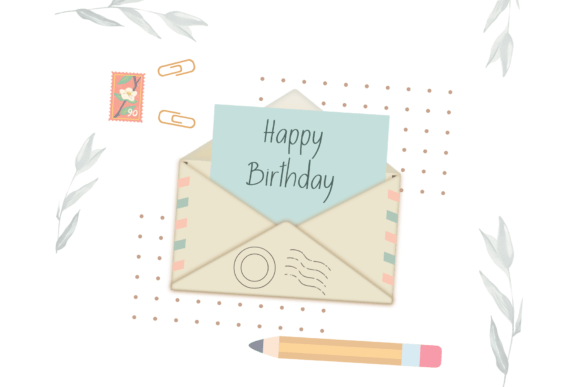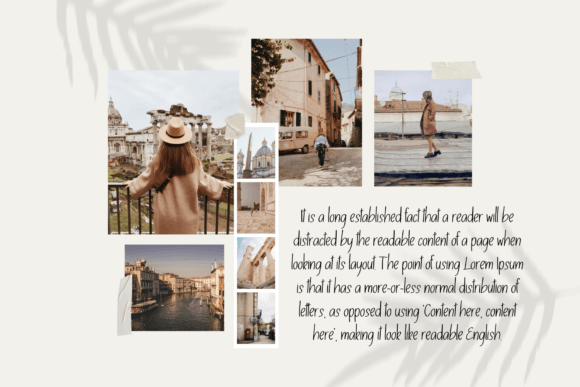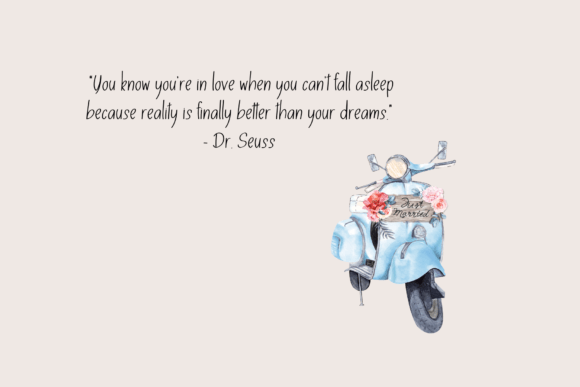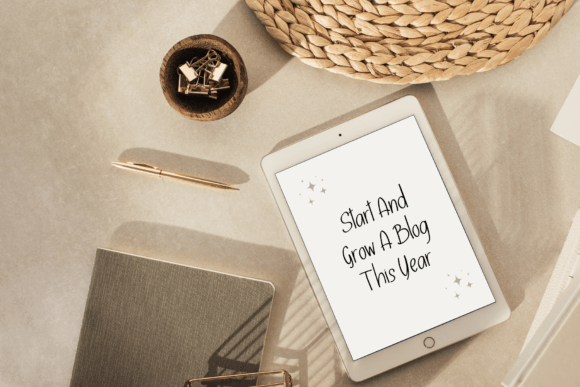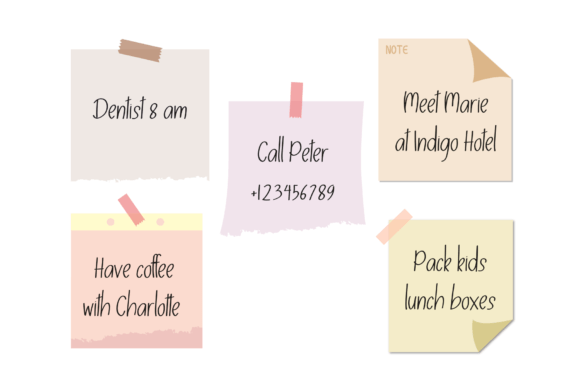
Introduction to Lala Journal Font Font
Fonts play a crucial role in design, and the Lala Journal Font font is a typeface that brings both character and versatility to any project. Whether you’re working on a branding project, a website, or a print design, the Lala Journal Font font offers a unique style that can elevate your work.
Lala Journal is a handwritten font perfect for digital notes, planners, logos, web design, notebooks, journals, labels, blogs, quotes, greeting cards, tea towels, apparel, pillows, mugs, toys, posters, baby clothing, picture books and so much moreβ¦basically anything that requires a handwritten look.
Lala Journal is a handwritten font perfect for digital notes, planners, logos, web design, notebooks, journals, labels, blogs, quotes, greeting cards, tea towels, apparel, pillows, mugs, toys, posters
Key Features of Lala Journal Font Font
Why Choose Lala Journal Font Font?
The Lala Journal Font font is more than just a typeface β it’s a design tool that helps you communicate your message with style and clarity. Its unique character set and versatile design make it suitable for a wide range of applications, from elegant invitations to bold headlines.
With its carefully crafted letterforms and balanced proportions, the Lala Journal Font font ensures readability and visual appeal across all mediums.
What makes Lala Journal Font font special?
The Lala Journal Font font stands out with its unique design, exceptional readability, and versatility across various design applications.